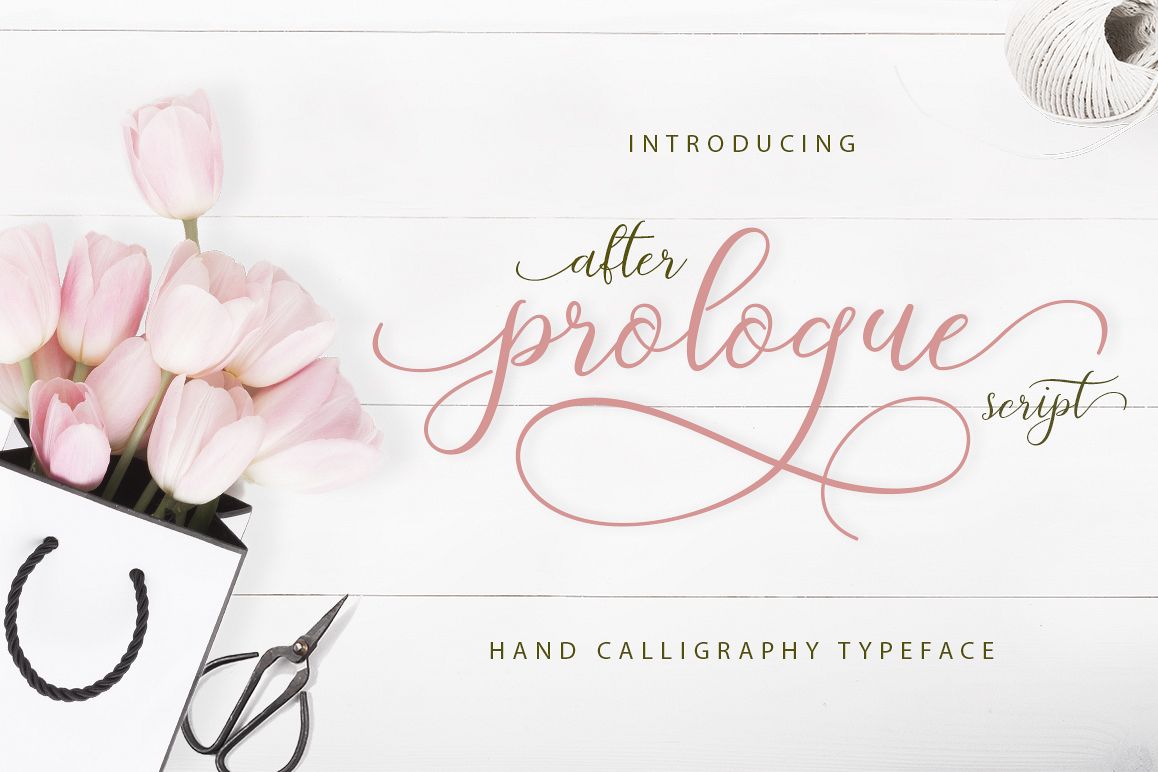
Prologue Script
After Prologue Script is a hand lettered stylish calligraphy font that features a varying baseline, smooth line, classic and elegant touch. Can be used for various purposes such as headings, signatures, logos, wedding invitations, t-shirts, letterheads, signage, labels, posters, badges etc.
After Prologue Script features 519 glyphs with 207 alternate characters. including initial and terminal letters, alternates, ligatures and multiple language support.